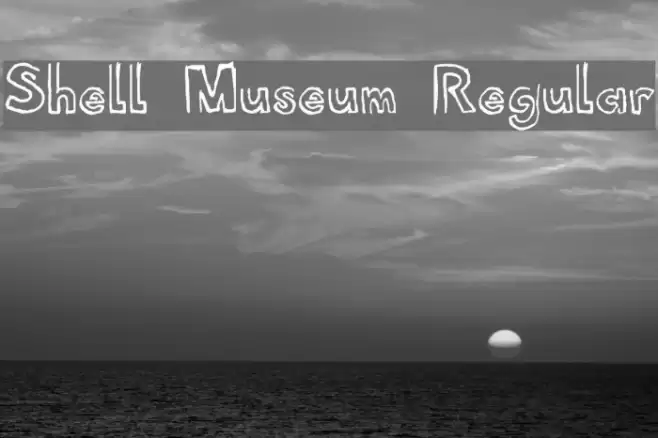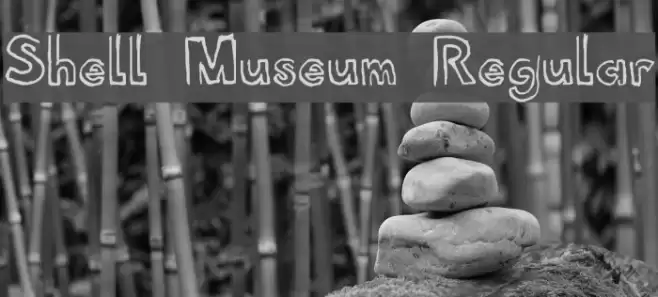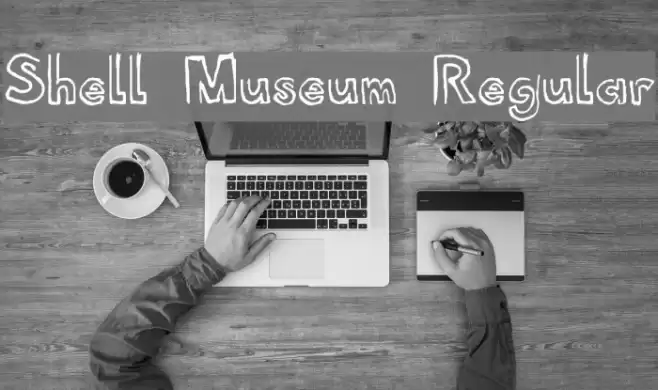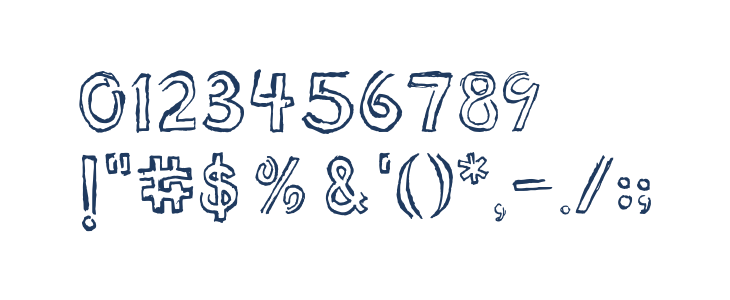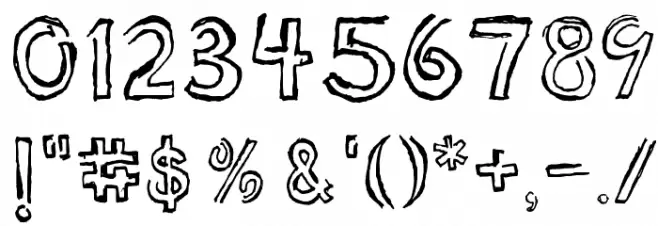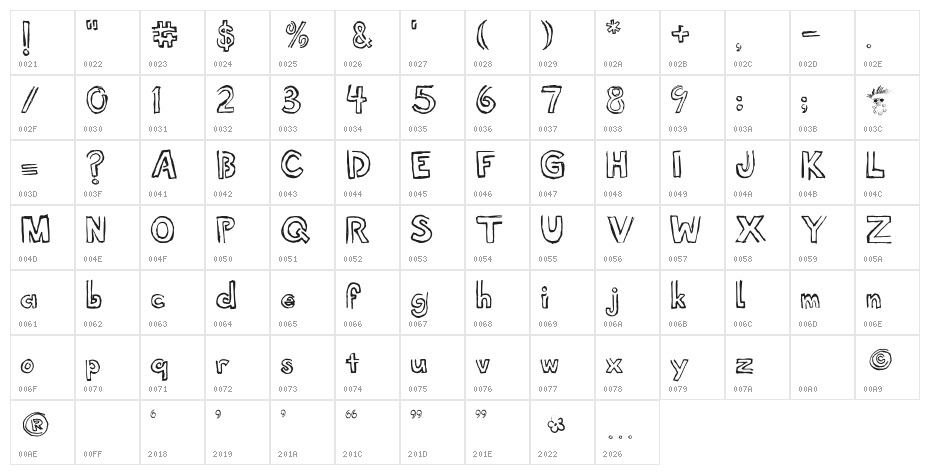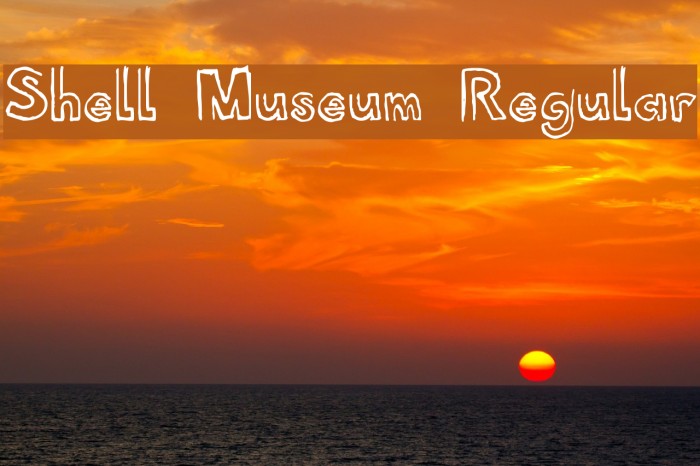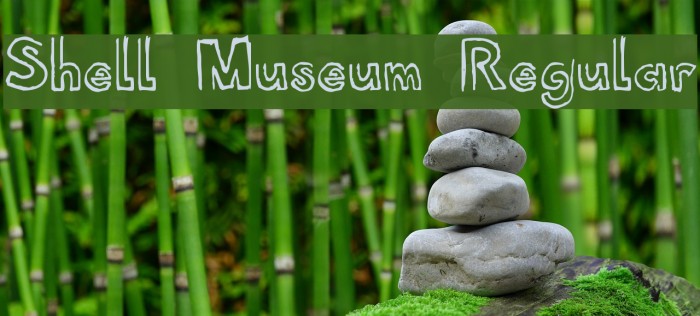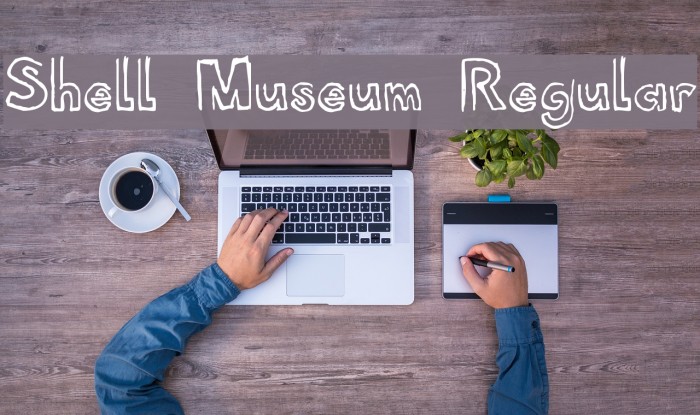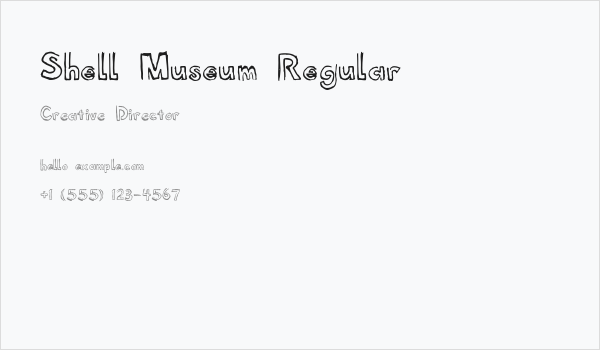
Shell Museum Regular Font
Shell Museum Regular Description
This font features a playful and artistic design, characterized by its hand-drawn appearance. Each letter and number is outlined with a slightly irregular, sketch-like quality, giving it a whimsical and creative feel. The strokes are uneven, adding to the charm and uniqueness of the font. It maintains a consistent thickness throughout, which enhances readability while preserving its artistic flair. The font includes a full set of uppercase and lowercase letters, numbers, and a variety of special characters, making it versatile for various design needs.
A playful, hand-drawn font with a sketch-like, artistic style from Uncategorized fonts.
- Proposed Projects: Ideal for children's books, creative posters, art projects, and playful branding.
- Overall Style: Artistic, Whimsical
- Use Case: Headlines, Posters, Creative Projects